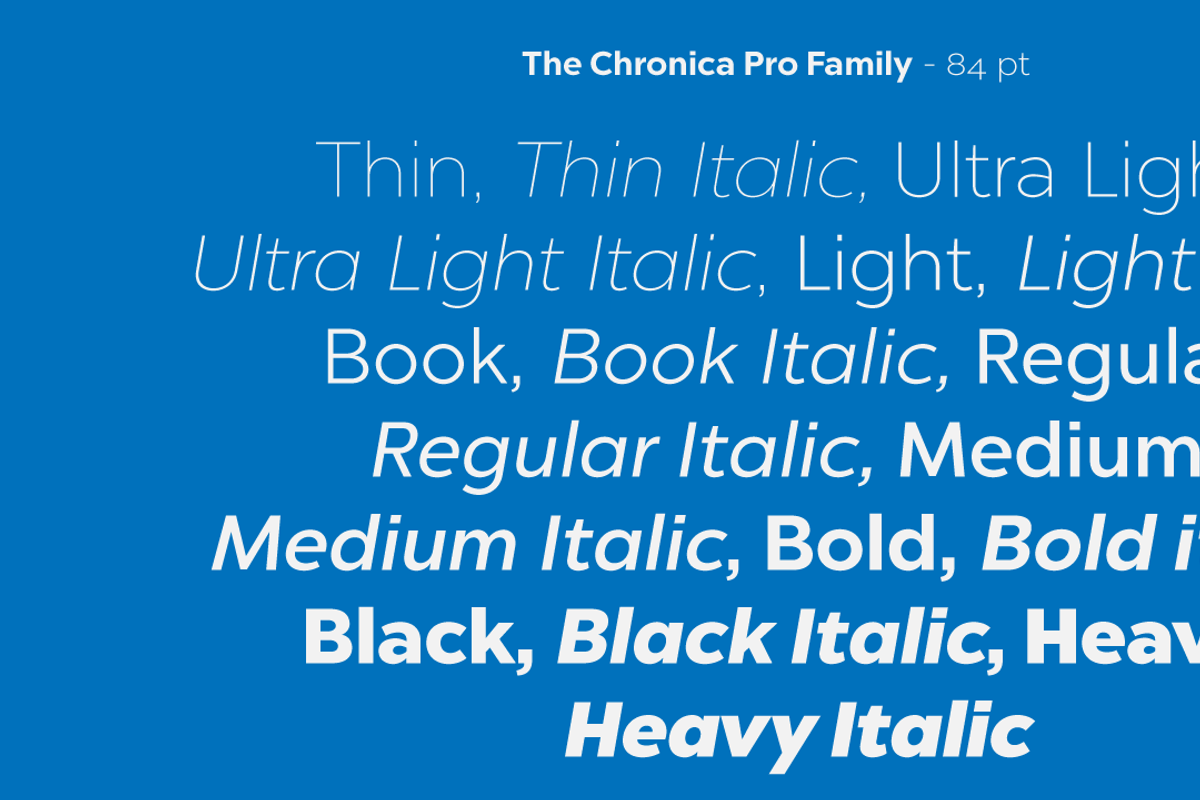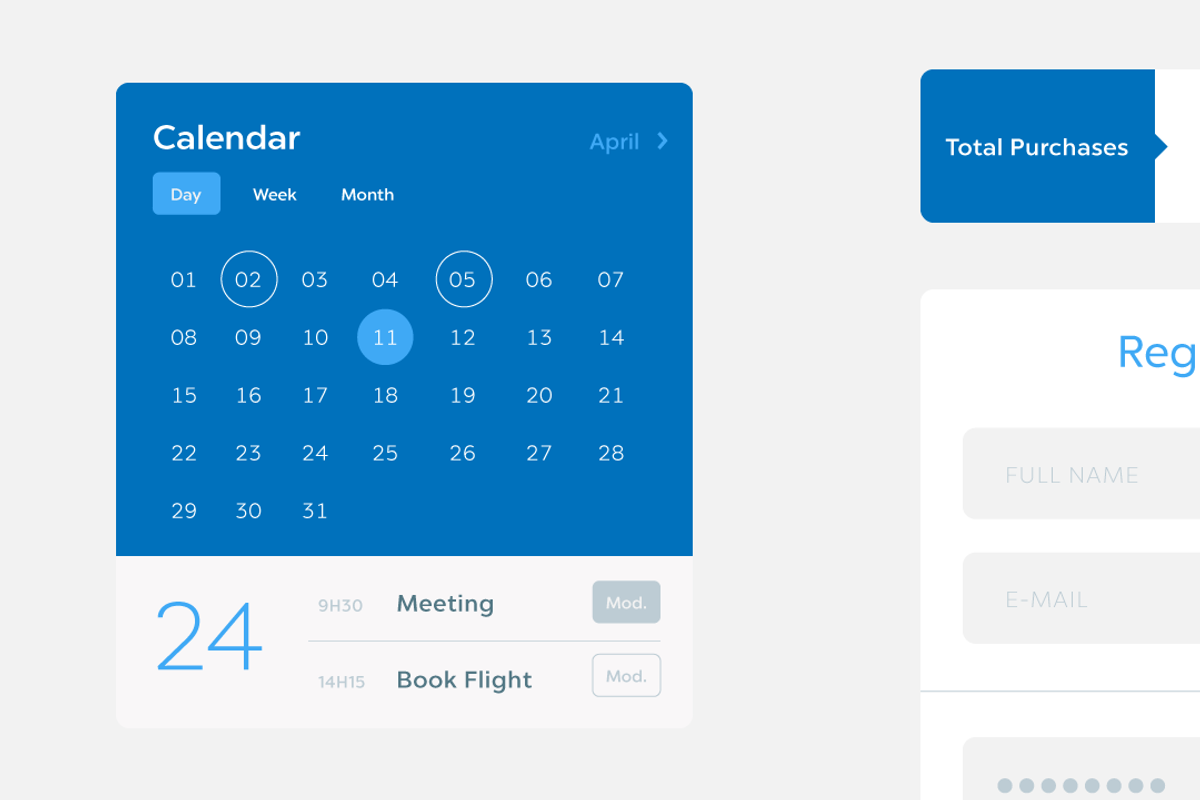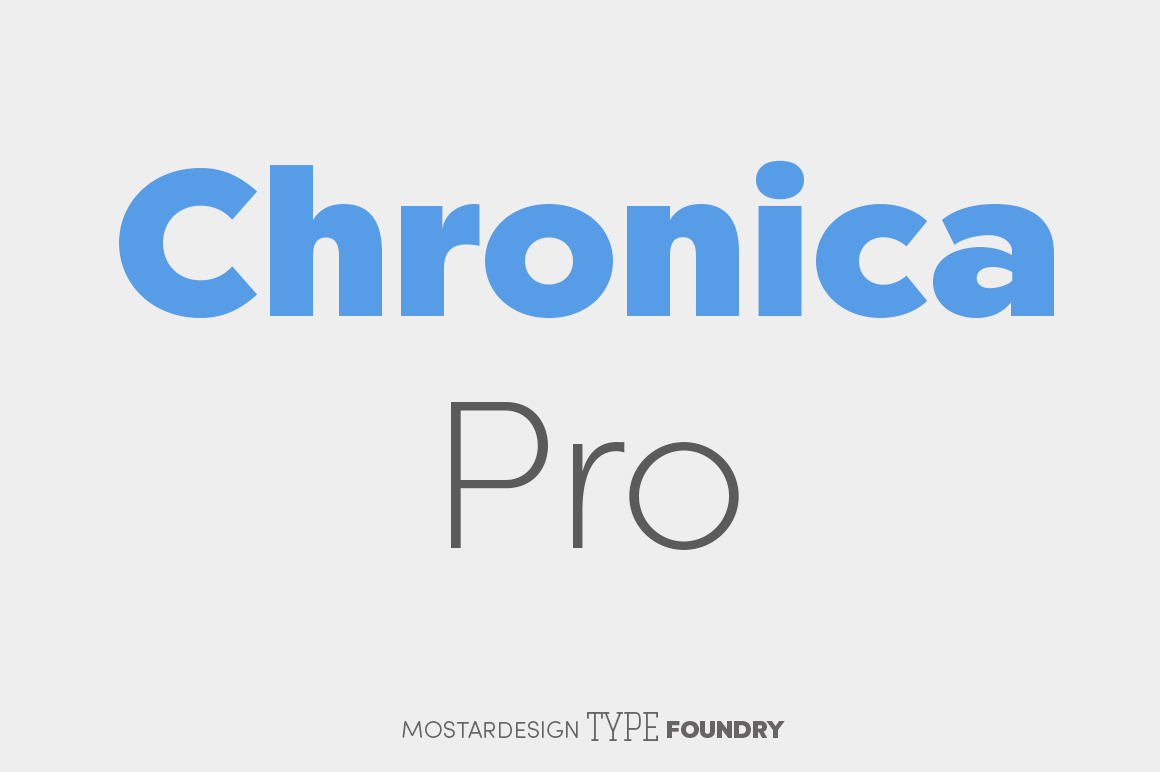
Chronica Pro Family (18 fonts)
Chronica Pro is a new contemporary font family focusing on balance and quality for high professional use. Designed with a lot of attention to details and versatility, Chronica Pro could satisfy all kinds of demands such as editorial design, brand creation, graphic design, signage as well as on screen, apps, web sites, ebooks, etc.
With its 18 fonts, Chronica Pro can be defined as a humanist spirit in a geometric body and supports international communication extending to Central, Western and Eastern European languages.
• 18 fonts from Thin to Heavy